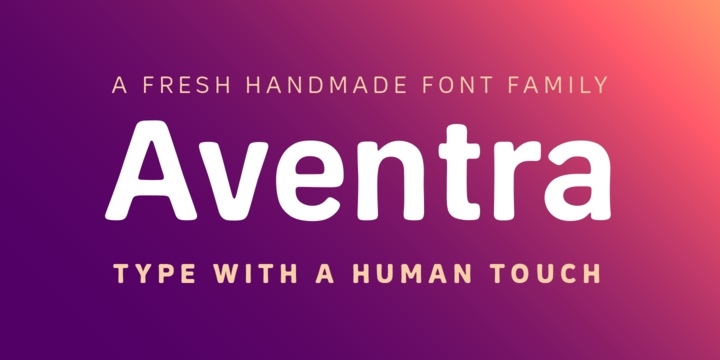
Aventra Font
Aventra Font is perfect for adventure travel agency branding, outdoor expedition company logos, extreme sports equipment packaging, wilderness survival training materials, mountain climbing gym signage, adventure tourism campaigns, outdoor gear retail graphics, hiking trail guides, expedition photography studios, and thrill-seeking lifestyle brand communications. This dynamic typeface excels in applications where adventurous spirit, outdoor exploration, and bold journey-taking are fundamental brand messaging elements.
What makes Aventra Font exciting is its powerful ability to capture the exhilarating rush of outdoor adventure through bold letterforms that convey movement, determination, and the irrepressible urge to explore uncharted territories. The font features strong, confident character construction with subtle angular details that evoke mountain peaks, rushing rivers, and windswept landscapes. Its energetic personality immediately communicates courage and exploration, making it perfect for brands that inspire people to push beyond comfort zones and embrace the transformative power of outdoor adventures.
The Aventra Font family typically includes multiple weights from Regular to Bold, often featuring condensed variations that accommodate action-packed layouts and space-efficient adventure gear labeling. Many versions include alternate characters with enhanced adventure styling, decorative elements inspired by compass roses and trail markers, and special symbols related to outdoor navigation and expedition planning. Some collections feature distressed variations that add authentic weathered character for rugged outdoor applications and extreme environment branding.
Whether you're developing brand identities for adventure tourism companies, creating promotional materials for outdoor experiences, or designing content that celebrates the explorer mindset and wilderness adventures, Aventra Font Free Download provides the authentic adventure character that resonates with thrill-seekers and outdoor enthusiasts who crave meaningful experiences in nature. Its bold presence makes it perfect for brands that challenge people to discover their limits and embrace life-changing adventures. The font's ability to convey both excitement and reliable expertise makes it particularly valuable for adventure guides, outdoor retailers, and expedition companies seeking to inspire confidence while communicating their commitment to safe, transformative wilderness experiences.